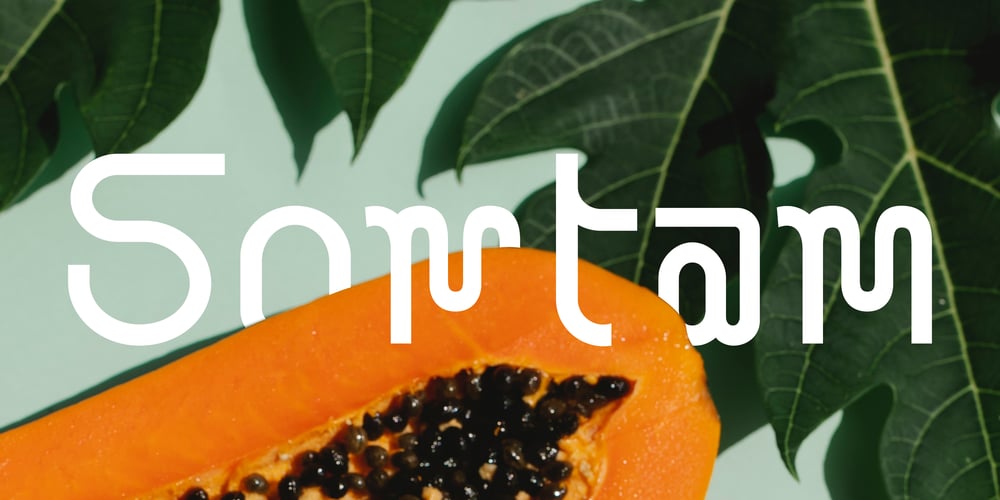
Somtam Font Family was designed by Paul Henry Robb and published by S6 Foundry. Somtam contains 4 styles and family package options. Somtam is a new decorative geometric display typeface, based on the continuation of a single line. It complements the style and personality of the ascetics of the continuum. Somtam is perfectly suited for headlines, large-format prints, brand identities, social media, advertising, editorial design, posters, magazines, logos, headings, and more.